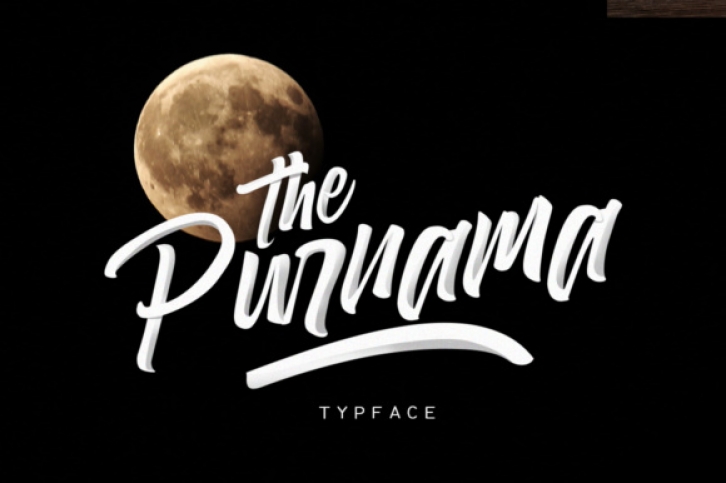
The Purnama is a clean hand-lettered font created with crayola on paper, and digitized into a stunning clean vector.
It’s the perfect font for branding, homeware designs, product packaging or simple as a text overlay.